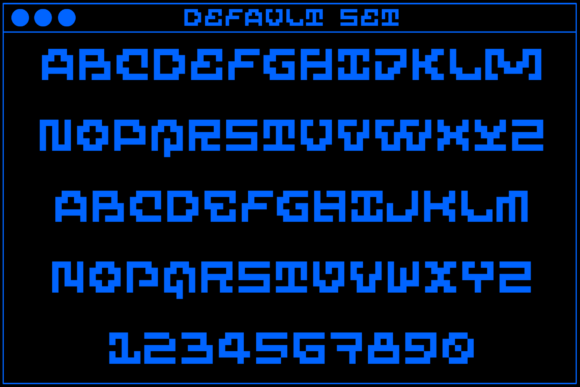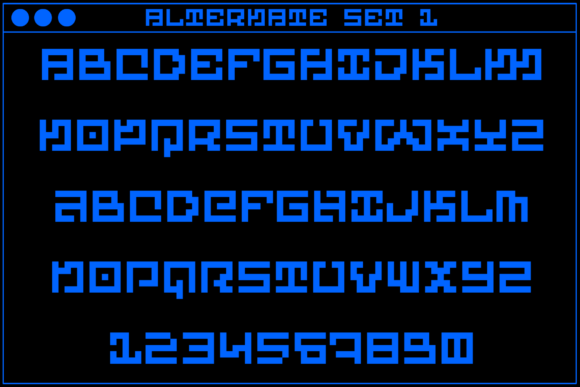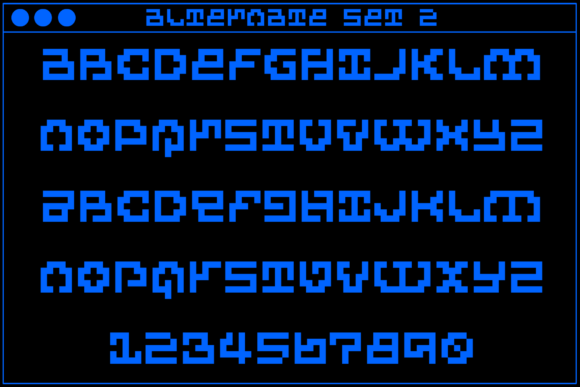
Introduction to MultiType Maze Cryptic Font
MultiType Maze Cryptic is a cool, uniquely shaped, pixelated display font.
Add a distorted and trendy touch to your designs with this unusual pixel font MultiType Maze Cryptic is PUA encoded which means you can access all glyphs and swashes with ease.